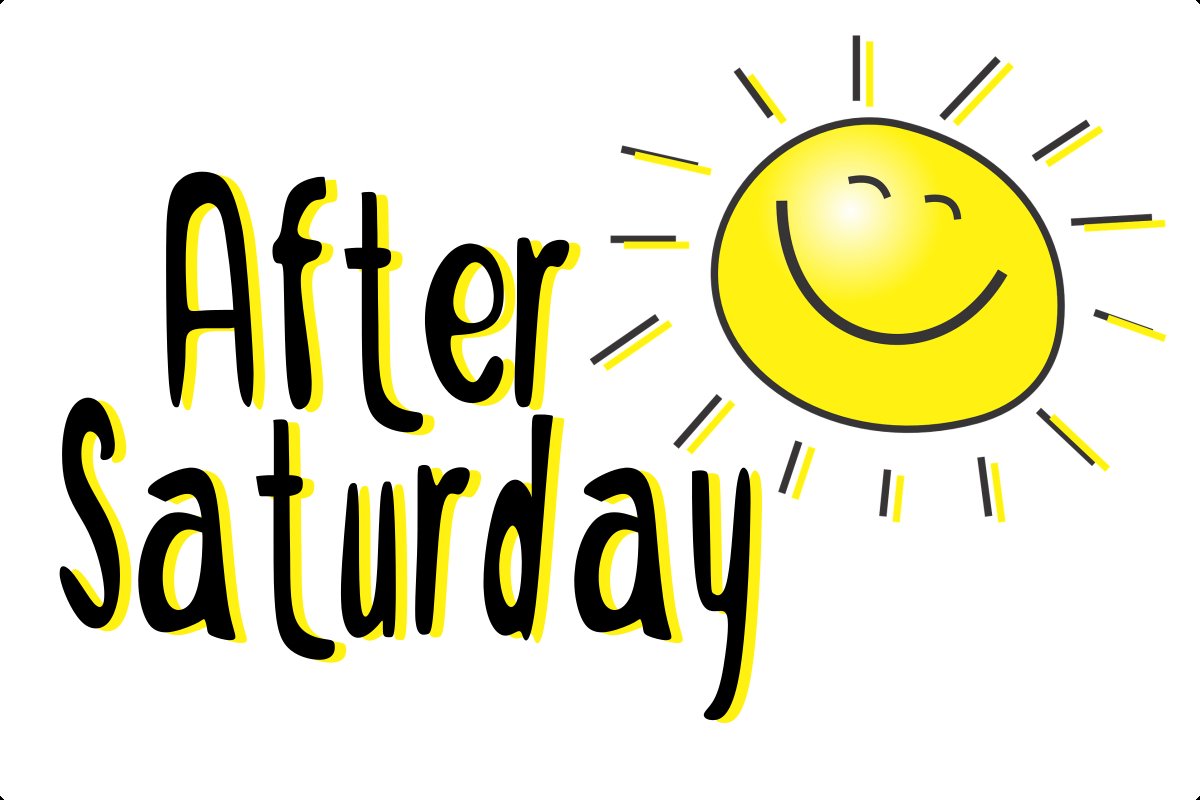
After Saturday
Introducing After Saturday Font.
This font is very simple and fun to use! After Saturday* is perfect for posters, packaging, headline, merchandise, t-shirt/apparel, greeting card, tags  and many more. "After Saturday" font include multilingual language.